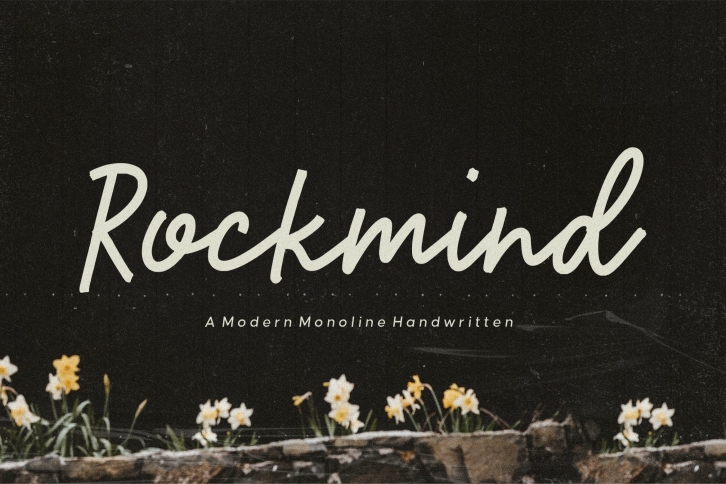
Rockmind Modern Monoline Handwritten is a great font that was designed by Letterative Studio. Imagine the amount of combinations you can create using this font! The archive is 18.58 MB and it was released on October 14, 2022. Rockmind Modern Monoline Handwritten looks beautiful on wedding invitations, greeting cards, logos, posters, labels, t-shirt designs, logos, business cards and is perfect for use in ink or watercolor works, fashion, magazines, packaging and food menus, children's books and more!